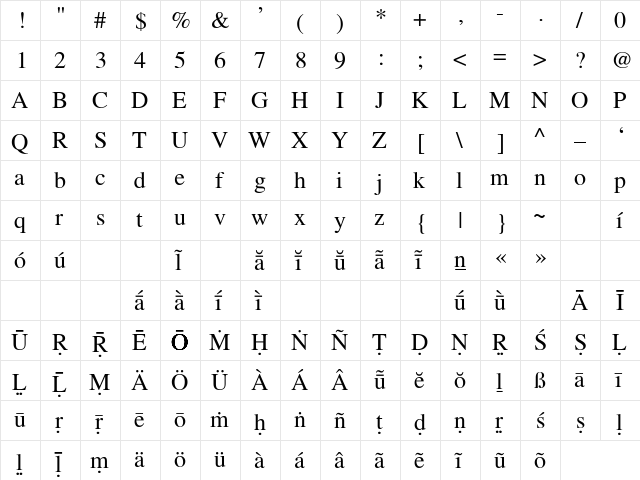
Times Shiva Roman Regular
Design Context for Times Shiva Roman Typeface
Times Shiva Roman offers clean, dependable letterforms without strong stylistic allegiance, making it a practical choice for designers who need flexibility.